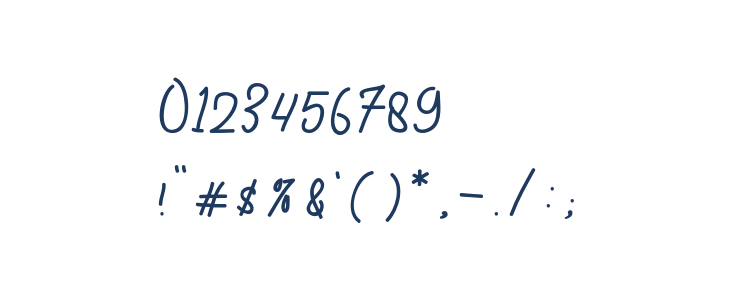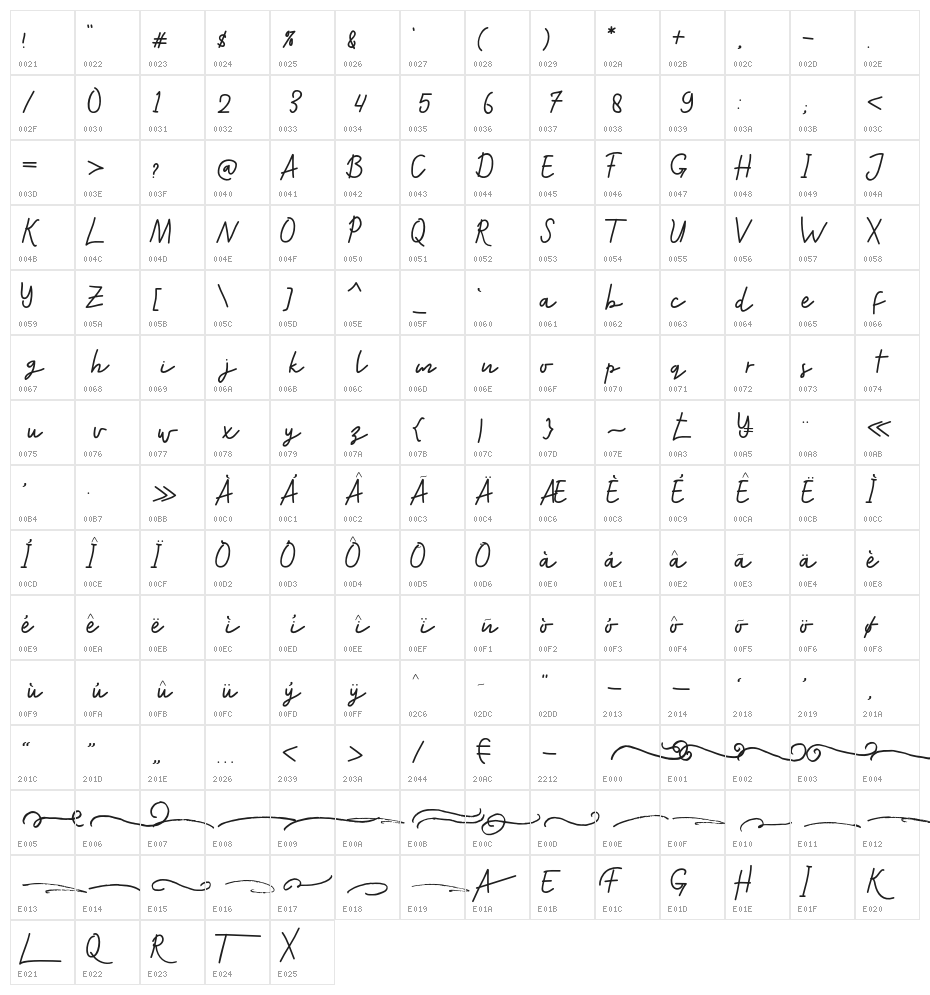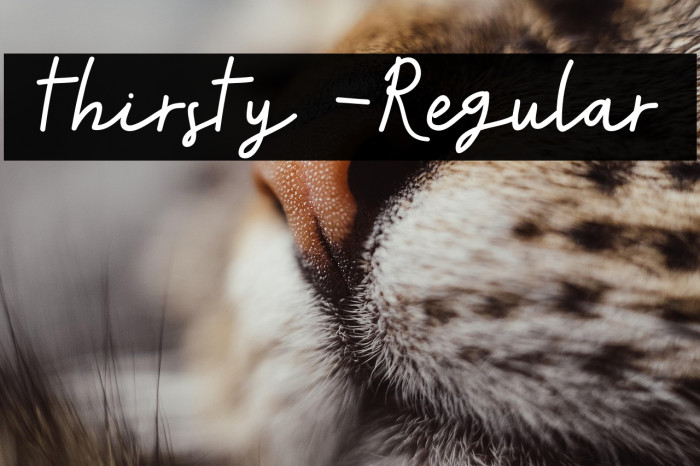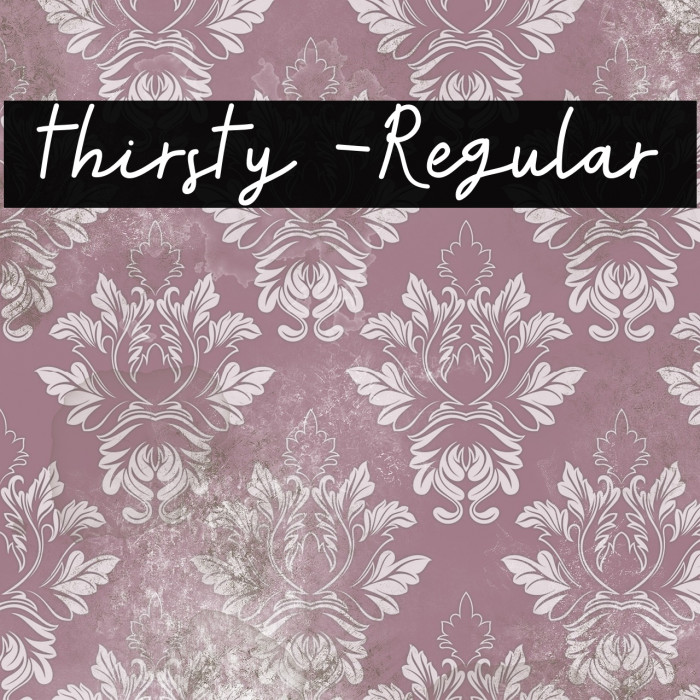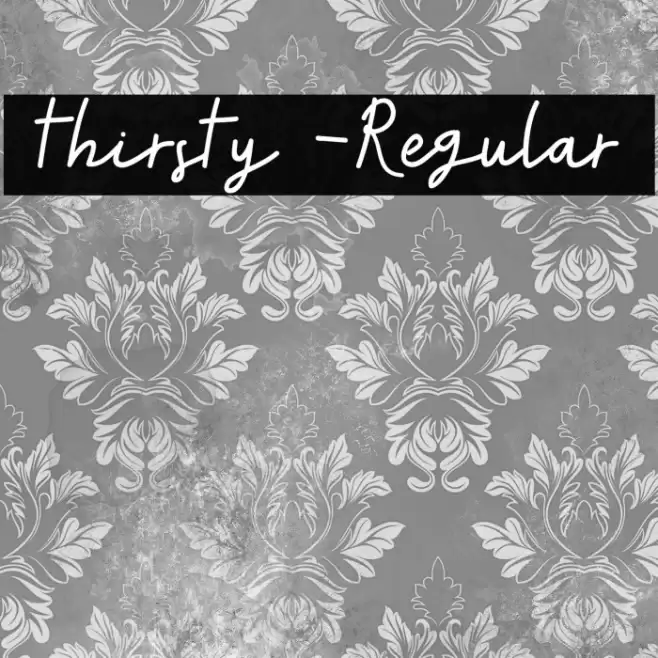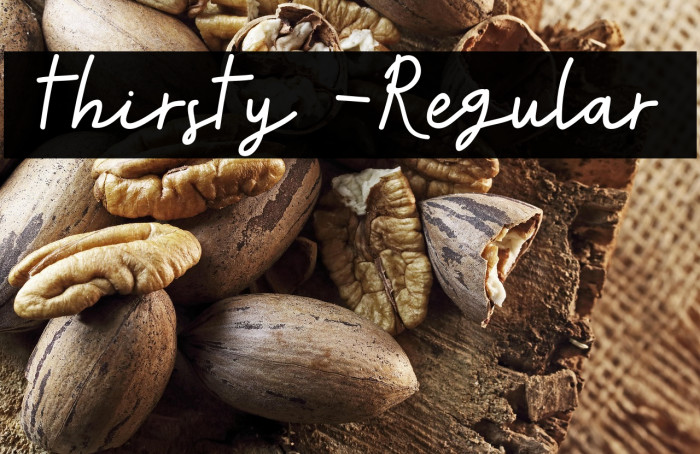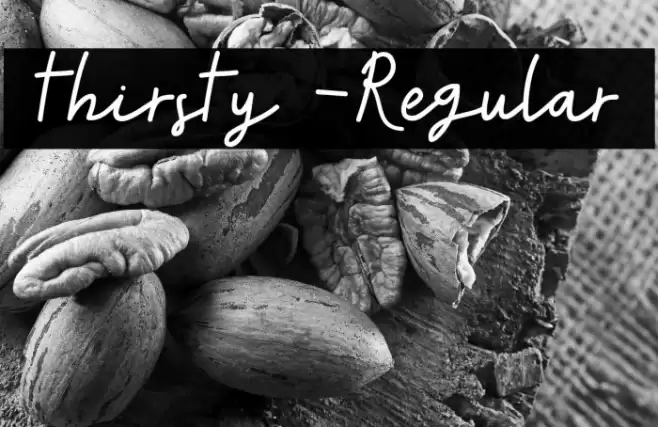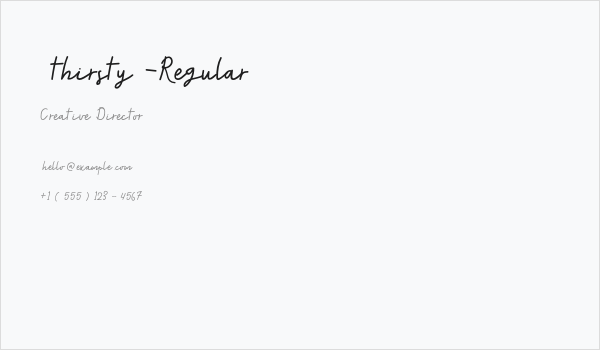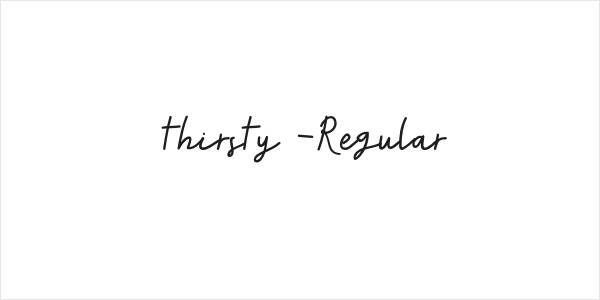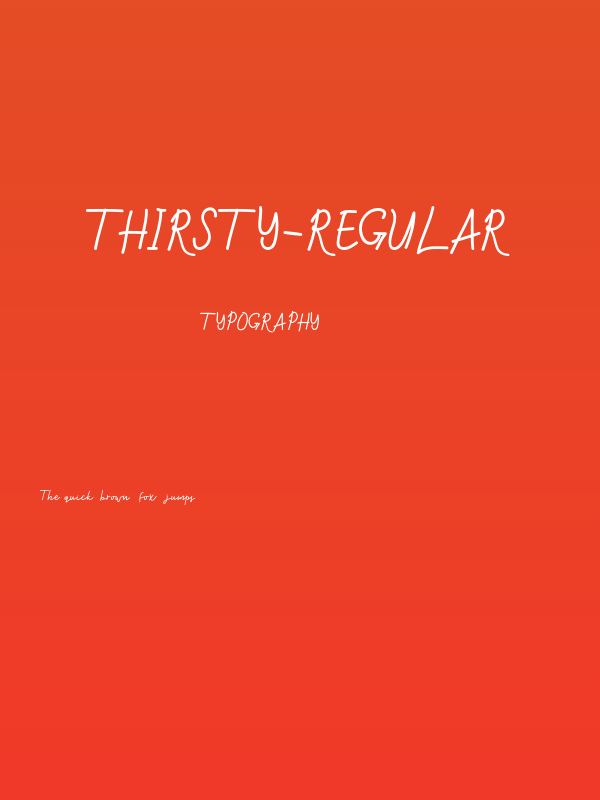
thirsty-Regular Font
thirsty-Regular Description
This font features a lively and casual handwritten style, characterized by its fluid and connected letterforms. The uppercase letters are bold and slightly slanted, giving a dynamic feel, while the lowercase letters maintain a consistent flow with a touch of elegance. The numerals are clear and easy to read, complementing the overall playful aesthetic. Special characters are creatively designed, adding to the font's versatility. This font exudes a sense of spontaneity and charm, making it suitable for projects that require a personal touch.
| Proposed Projects | Ideal for greeting cards, invitations, personal branding, and creative projects that require a personal touch. |